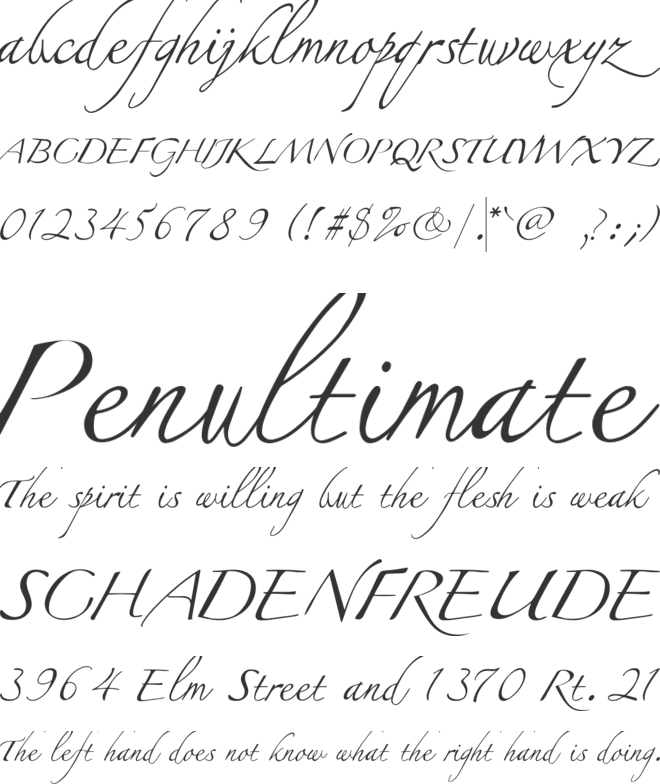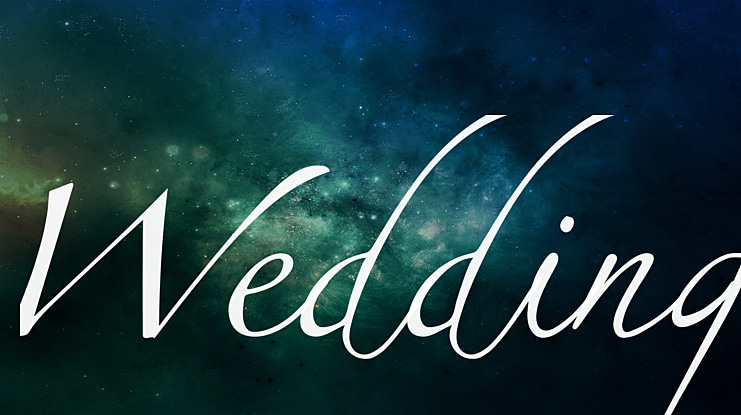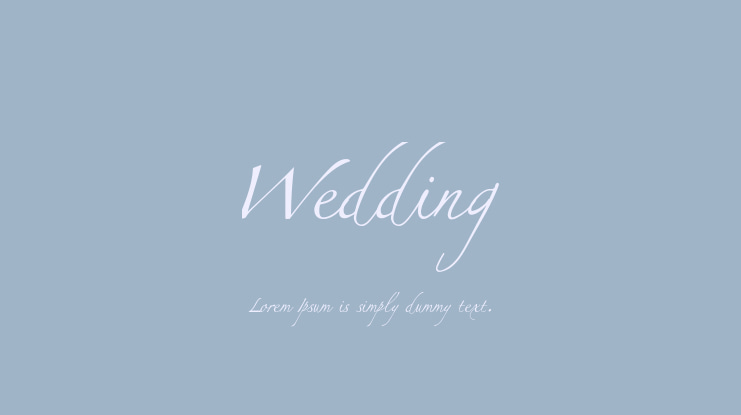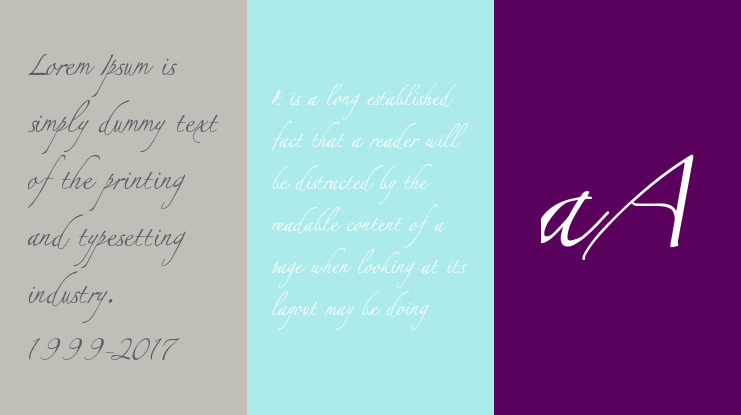
Wedding Font
Wedding is a chic, refined script font that emanates sophistication and elegance. Its stylish alternates and ligatures make this font the perfect match for any project.